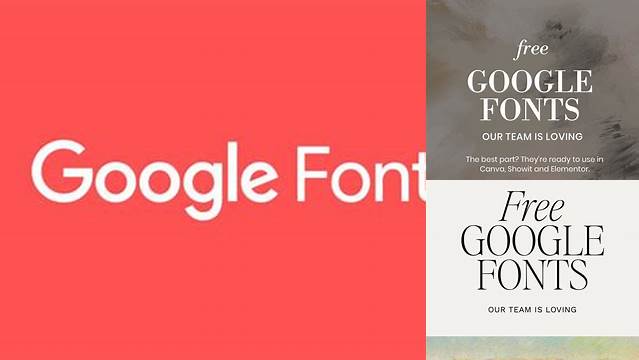
Hey guys! Ever felt like your Android phone's fonts are a little...blah? You're not alone! A fresh font can totally transform your phone's look and feel, making everything from texting to browsing the web a much more enjoyable experience. The good news? There's a treasure trove of free Google Fonts just waiting to be downloaded and used on your Android device. This article is your ultimate guide to finding and installing those fonts, so let's dive in and give your phone a makeover!
H2: Understanding Google Fonts and Android Compatibility
Before we jump into the download process, let's quickly chat about Google Fonts and how they work with Android. Google Fonts is a fantastic library containing hundreds of fonts, all completely free to use. These fonts are designed to be web-friendly, but many are also perfectly compatible with Android devices. However, not all Android devices handle custom fonts the same way, so understanding the basics is key. When we talk about google fonts free download for android, we mean fonts that you can use without paying a dime, but you'll need to understand how to install them depending on your device. Some phones have built-in options for changing fonts, while others require a third-party app. We'll cover all the options so you can find the best solution for your specific Android phone or tablet. Understanding this compatibility is crucial because it ensures you don't waste time downloading fonts that won't work on your device. Think of it like trying to fit a square peg in a round hole β it's just not going to happen. Knowing the capabilities of your Android version and manufacturer will save you a lot of frustration in the long run. Also, consider the file formats of the fonts you download. Most Android devices prefer TTF (TrueType Font) or OTF (OpenType Font) formats. These formats are widely supported and ensure the fonts render correctly on your screen. So, before you get too excited and start downloading everything you see, take a moment to understand what your device can handle. This little bit of research will make the whole font customization process much smoother and more enjoyable. Trust me, your phone will thank you for it! Letβs make sure your phone gets the stylish upgrade it deserves.
H2: Finding the Best Google Fonts for Your Android
Okay, now for the fun part: finding the perfect fonts! With hundreds of google fonts free download for android available, it can feel a bit overwhelming. But don't worry, we'll break it down. First, head over to the Google Fonts website (fonts.google.com). This is your central hub for all things Google Fonts. The website is super user-friendly, allowing you to browse by categories like serif, sans-serif, display, handwriting, and monospace. This is incredibly helpful because it lets you narrow down your choices based on the overall style you're going for. Want something classic and elegant? Explore the serif fonts. Prefer a clean and modern look? Sans-serif fonts are your best bet. Feeling a bit playful? Check out the display fonts. And if you're aiming for a handwritten vibe, the handwriting category is where you'll find the gems. Beyond categories, Google Fonts also offers a ton of filters. You can filter by thickness, slant, and width, which allows for even more precise searching. Imagine you need a font that's bold and impactful β you can easily filter for fonts with a higher thickness. Or perhaps you're looking for something with a slight italic slant β the filter feature has you covered. Another fantastic feature is the ability to preview how the font looks with your own text. Simply type in a sample sentence, and you'll see how the font renders. This is incredibly useful because it lets you visualize the font in context. You can even adjust the font size to see how it looks at different scales. Don't underestimate the power of previewing β it can save you from downloading fonts that look great in the thumbnail but don't quite work with your actual content. As you browse, make a list of your favorite fonts. It's easy to get caught up in the excitement of finding new fonts, but having a list helps you stay organized and focused. Once you have a shortlist, you can compare them side-by-side and make a final decision. Remember, choosing a font is a personal preference, so pick something that resonates with you and reflects your style. Have fun exploring the world of Google Fonts β your perfect font is out there waiting to be discovered!
H2: Using Custom Launchers for Font Changes
Custom launchers are like the superheroes of Android customization, especially when it comes to changing fonts. If you're serious about giving your phone a personalized makeover, a custom launcher is definitely the way to go. These apps replace your phone's default home screen and app drawer, giving you a whole new level of control over the look and feel of your device. And guess what? Many of them offer fantastic font customization options! One of the biggest advantages of using a custom launcher for font changes is that it's a non-root method. This means you don't need to root your device to change the fonts on your home screen and in your app drawer. Rooting can be a bit risky and complicated, so using a custom launcher is a much simpler and safer alternative for most users. Popular custom launchers like Nova Launcher, Action Launcher, Lawnchair Launcher, and Apex Launcher all offer font customization features. Each launcher has its own unique interface and set of options, so it's worth trying out a few to see which one you like best. But in general, the process for changing fonts is pretty similar across these launchers. Typically, you'll need to go into the launcher's settings menu and look for options related to appearance, desktop, or app drawer. Within these settings, you should find a font selection option. This option will usually allow you to choose from a list of pre-installed fonts or select a custom font file from your device's storage. This is where you can use those google fonts free download for android that you downloaded earlier! Once you've selected a font, the launcher will apply it to the home screen, app drawer, and sometimes even other parts of the interface. Some launchers even allow you to customize the font size and color, giving you even more control over the appearance of your phone. When you're choosing a custom launcher, it's important to consider its features, performance, and user interface. A good launcher should be lightweight, responsive, and easy to use. It should also offer a wide range of customization options, including font changes, icon packs, themes, and more. Custom launchers are a fantastic way to change fonts on Android without rooting your device. They offer a simple and effective way to personalize your phone's appearance and make it truly your own. So, if you're looking to give your phone a fresh new look, definitely check out some custom launchers β you won't be disappointed!
H2: Font Customization in Keyboard Apps
Your keyboard: it's the tool you use to communicate, search, and express yourself on your Android device. So, why not give it a little personality with a custom font? Many keyboard apps offer font customization options, allowing you to change the way the keys look and feel. This is a simple yet effective way to personalize your phone and make your typing experience more enjoyable. Keyboard apps like Gboard, SwiftKey, Chrooma Keyboard, and Grammarly Keyboard all offer various customization features, including font selection. Some of these apps come with a selection of built-in fonts, while others allow you to use custom fonts that you've downloaded yourself. This gives you a wide range of options to choose from, whether you prefer a clean and modern look, a playful and whimsical style, or something in between. Changing the font in your keyboard app is usually pretty straightforward. You'll typically need to go into the app's settings menu and look for options related to appearance, theme, or fonts. Within these settings, you should find a font selection option. This option will allow you to choose from the available fonts and preview how they look on the keyboard. Some keyboard apps also allow you to customize other aspects of the keyboard's appearance, such as the key size, color, and background. This gives you even more control over the look and feel of your keyboard. One thing to keep in mind when choosing a font for your keyboard is readability. You want to choose a font that's easy to read, even on the small keys of a smartphone keyboard. Avoid fonts that are too fancy or stylized, as they can make it difficult to see the letters and symbols. A clean and simple font is usually the best choice for readability. Another consideration is the overall style of your keyboard. You want to choose a font that complements the other elements of your keyboard's design, such as the theme and color scheme. If you're using a dark theme, for example, you might want to choose a light-colored font to make the keys stand out. Font customization in keyboard apps is a simple yet powerful way to personalize your Android device. It allows you to change the look and feel of your keyboard and make your typing experience more enjoyable. So, if you're looking for a quick and easy way to give your phone a personal touch, definitely check out the font customization options in your favorite keyboard app. Don't forget that google fonts free download for android can be used for this purpose!
H2: Theming Apps and Font Options
Theming apps are like the interior decorators of the Android world. They let you overhaul the look and feel of your phone's interface, giving it a fresh and personalized vibe. And guess what? Many theming apps offer font options as part of their customization packages! This means you can change the fonts used throughout your system, not just in specific apps or launchers. This is a powerful way to achieve a consistent and cohesive look across your entire device. One of the most popular theming apps for Android is Substratum. Substratum is a powerful theming engine that allows you to apply themes to various parts of your system, including the status bar, navigation bar, settings menu, and even individual apps. Many Substratum themes include custom fonts, so you can easily change the fonts used throughout your system by applying a theme. However, Substratum requires root access, so it's not an option for everyone. If you're not rooted, there are still other theming apps that offer font options. Some custom launchers, like Nova Launcher and Action Launcher, offer theming capabilities that include font selection. These launchers allow you to change the fonts used on your home screen, app drawer, and other interface elements. In addition to launchers, there are also standalone theming apps that don't require root access. These apps typically work by applying overlays or modifications to specific apps or system components. They may not be as comprehensive as Substratum, but they can still offer a significant level of customization, including font changes. When you're using a theming app to change fonts, it's important to choose a font that's readable and consistent with the overall theme. A font that's too fancy or stylized can be difficult to read, especially on a small screen. It's also important to choose a font that complements the other elements of your theme, such as the colors and icons. Some theming apps allow you to preview the fonts before applying them, so you can see how they look with your theme. This is a helpful feature that can prevent you from choosing a font that doesn't quite work with your overall design. Theming apps are a fantastic way to change fonts on Android and give your phone a completely new look. Whether you're rooted or not, there are theming apps that can help you achieve the style you want. Remember that google fonts free download for android can be used in conjunction with these apps for maximum customization! So, go ahead and explore the world of theming and discover the fonts that best express your personality.
H2: Using Magisk Modules for Font Customization (Root Required)
Okay, buckle up, root users! We're diving into the world of Magisk modules, a powerful tool for customizing your Android device, including, of course, fonts. If you're not familiar with Magisk, it's a systemless rooting solution that allows you to modify your system without actually altering the system partition. This means you can enjoy the benefits of root access without sacrificing the ability to receive over-the-air updates. One of the most popular uses of Magisk is installing modules, which are essentially small packages that add or modify features on your device. There are Magisk modules for just about everything, including font customization! Using Magisk modules to change fonts is a great option for rooted users who want a system-wide font change without the hassle of manually replacing font files. Modules are easy to install and uninstall, making them a convenient way to experiment with different fonts. There are several Magisk modules available that allow you to change fonts on your Android device. Some modules come with a selection of pre-installed fonts, while others allow you to install custom fonts that you've downloaded yourself. The process for installing a Magisk module is pretty straightforward. First, you'll need to have Magisk Manager installed on your device. Then, you can download the Magisk module file (usually in ZIP format) and install it through Magisk Manager. Once the module is installed, you'll typically need to reboot your device for the changes to take effect. After rebooting, the new fonts should be applied system-wide. You can then enjoy your device with its fresh new look. When choosing a Magisk module for font customization, it's important to choose a reputable module from a trusted source. Some modules may contain malware or other harmful software, so it's crucial to be cautious. Always read the reviews and check the module's permissions before installing it. It's also a good idea to back up your device before installing any Magisk module, just in case something goes wrong. Using Magisk modules for font customization is a powerful and convenient way to change fonts on rooted Android devices. It allows you to easily experiment with different fonts and achieve a system-wide font change without the need for manual file replacement. So, if you're a rooted user looking to spice up your device, definitely check out the available Magisk modules for font customization. Donβt forget your google fonts free download for android can also be added via this method! Happy theming!
H2: Font Management Apps for Android
Okay, so you've downloaded a bunch of google fonts free download for android, and now your phone is a font jungle! It's time to bring in the font managers, the unsung heroes of Android customization. Font management apps are designed to help you organize, preview, and install fonts on your device. They can be a lifesaver if you're a font enthusiast or just someone who likes to keep things tidy. These apps provide a central hub for all your fonts, making it easy to browse, compare, and choose the perfect font for your needs. One of the key features of font management apps is the ability to preview fonts. Instead of just seeing the font name, you can actually see how the font looks with your own text. This is incredibly helpful for making informed decisions about which fonts to use. Many font management apps also allow you to install fonts directly from the app. This eliminates the need to manually move font files to specific folders, making the installation process much smoother. Some apps even offer batch installation, allowing you to install multiple fonts at once. Another useful feature of font management apps is the ability to organize your fonts into categories or collections. This can be helpful if you have a large library of fonts and want to keep them organized by style, project, or any other criteria. Some apps even allow you to create custom tags or labels for your fonts. When choosing a font management app, it's important to consider its features, user interface, and compatibility with your device. A good font management app should be easy to use, reliable, and offer the features you need to manage your fonts effectively. Some popular font management apps for Android include Font Manager, Fontster, and Typeface. These apps offer a range of features, from basic font preview and installation to advanced font organization and management. Font management apps are a must-have for anyone who's serious about font customization on Android. They help you keep your fonts organized, make informed decisions about which fonts to use, and streamline the installation process. So, if you're a font fanatic, download a font management app and get your font library in order!
H3: Exploring Serif Fonts for Android
Serif fonts are the classics, the elegant workhorses of the font world. They're characterized by the small strokes or